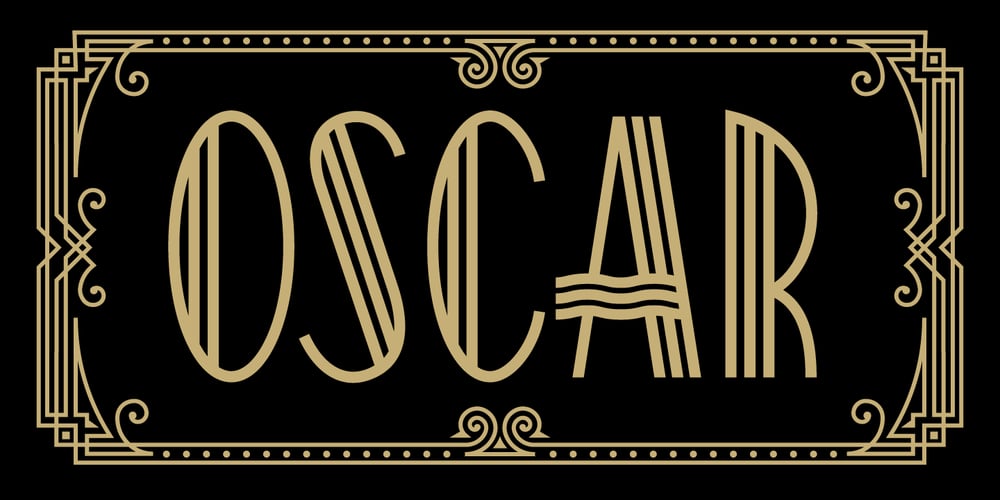
Oscar Font Family was designed by Daniel Pelavin and published by Pelavin Fonts. Oscar contains 1 styles and family package options. Inspired by the elegance and sophistication of Hollywood’s Golden Era, Oscar is a lyrical nod to the pinnacle of cinema achievements, the Academy Awards. Its slim, graceful features are accentuated by undulating triple waves. Delicate yet study, it will handily support messages both solemn and joyful. Use Oscar when you wish to convey a sense of celebration and prestige, a reference to the era of Art Deco and the 1920s or, a feeling of grace and ceremony.